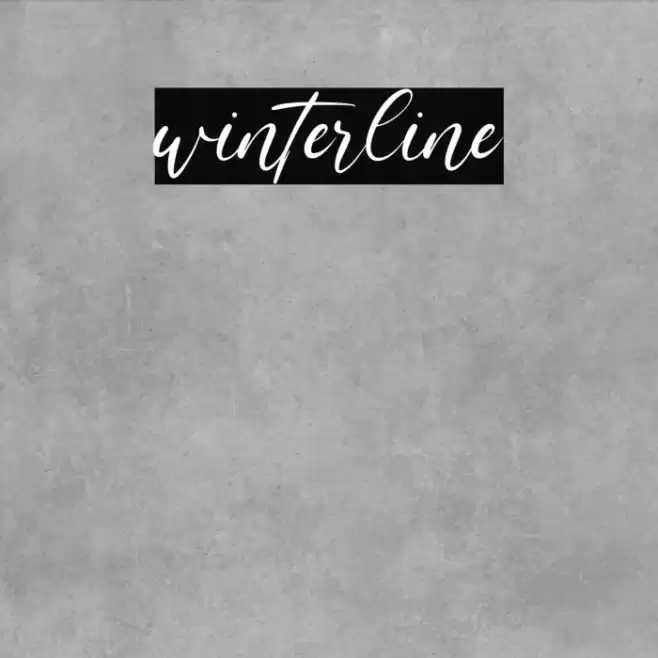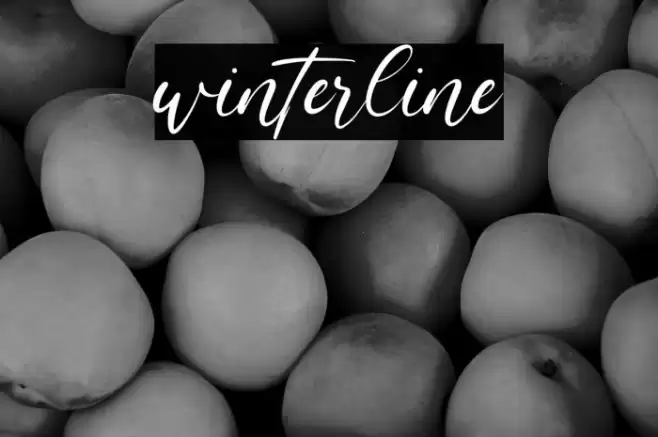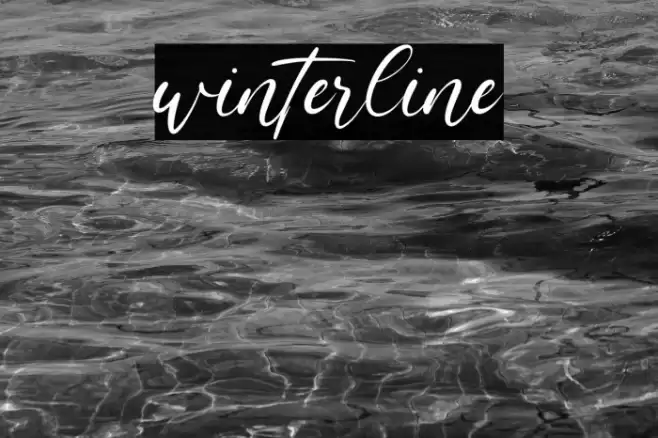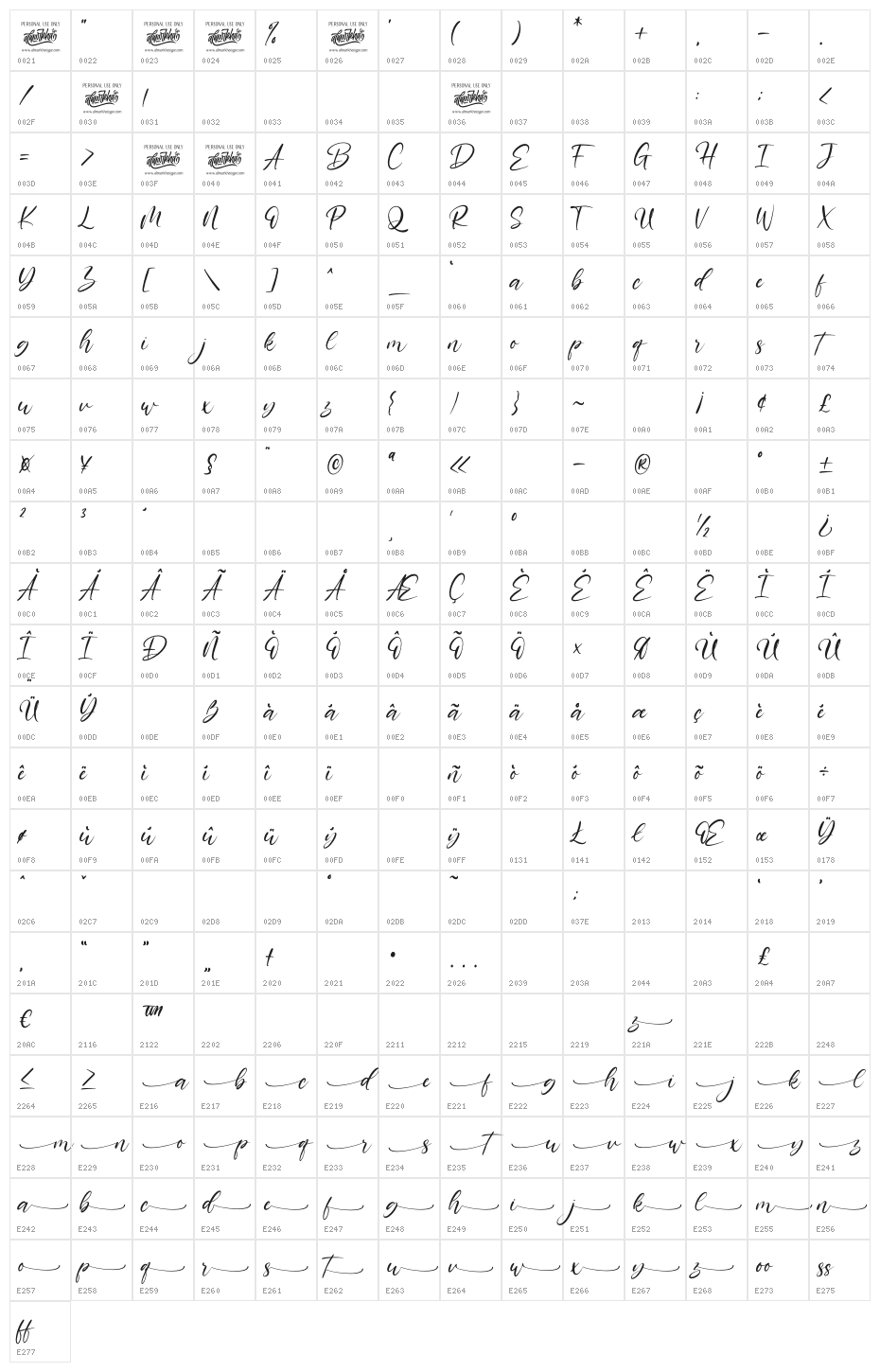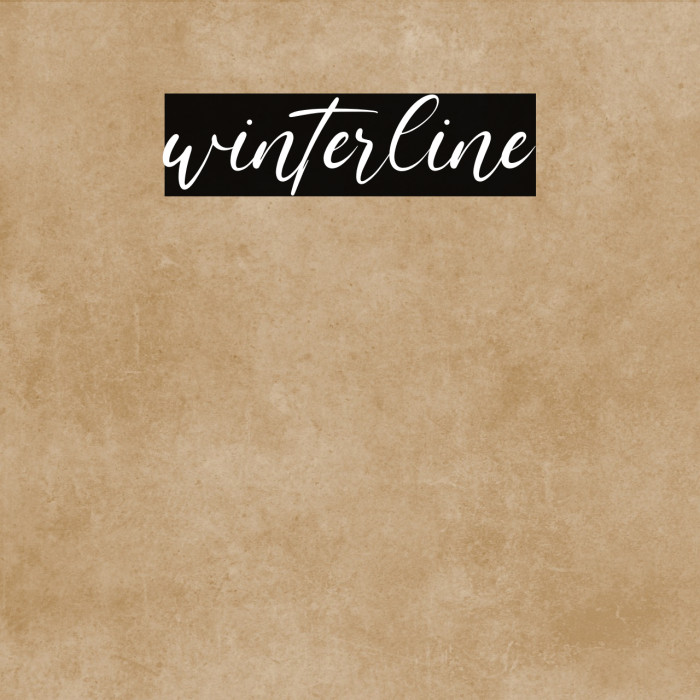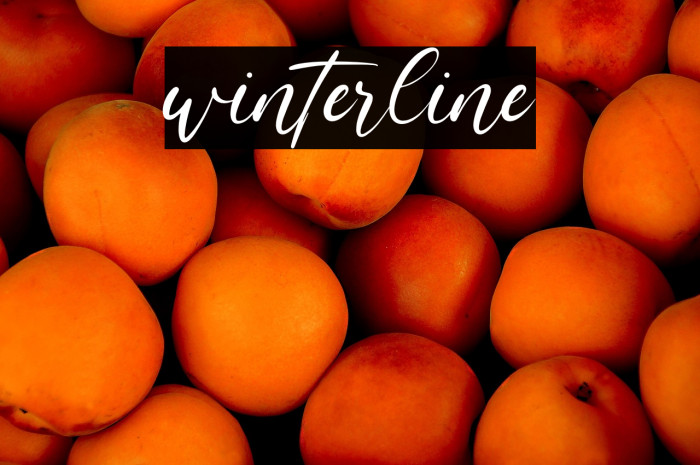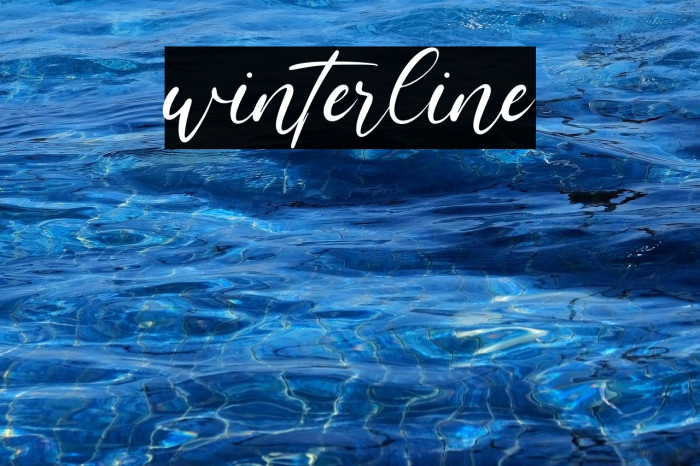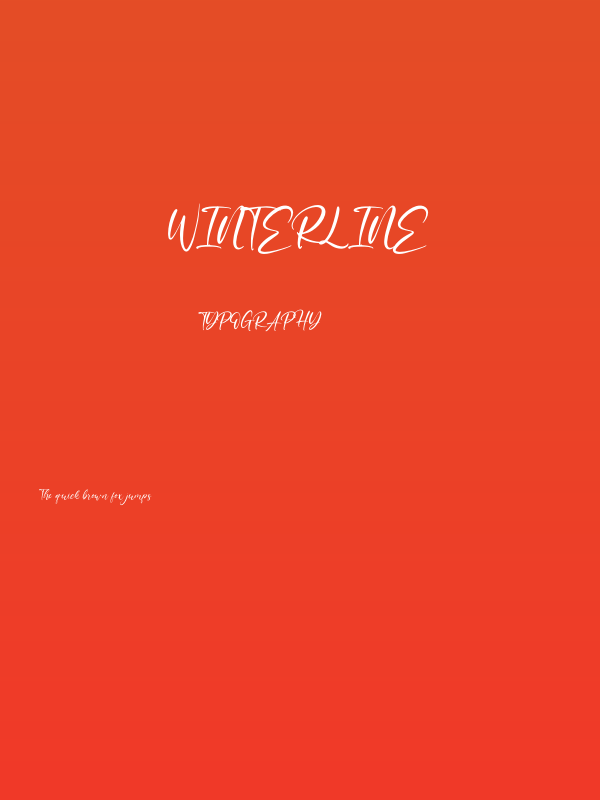
winterline Font
winterline Description
This font features a flowing, cursive style with elegant, sweeping strokes that give it a handwritten appearance. The uppercase letters are bold and expressive, with varying stroke widths that add a dynamic feel. The lowercase letters maintain a consistent style, with smooth curves and a slightly slanted orientation, enhancing the script-like quality. The numerals and special characters are crafted to match the overall aesthetic, ensuring a cohesive look across all text. This font is ideal for adding a personal touch to designs, making it suitable for invitations, branding, and artistic projects.
A flowing, cursive font with elegant, sweeping strokes and a handwritten appearance from Uncategorized fonts.
- Proposed Projects: Ideal for wedding invitations, personal branding, artistic projects, and decorative headings.
- Use Case: Logos, Invitations, Artistic Projects